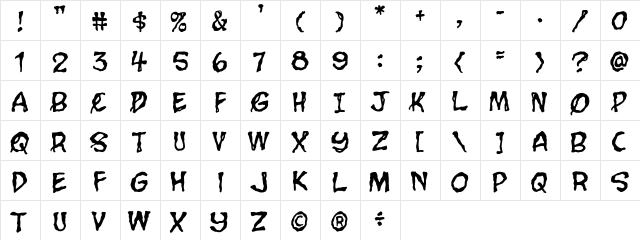
CCGrimlyFiendish Regular Font Preview
CCGrimlyFiendish Regular
CCGrimlyFiendish Regular Font Details
Design Context for CCGrimlyFiendish Typeface
CCGrimlyFiendish is a composed and adaptable typeface that performs quietly and consistently across a wide range of design contexts.